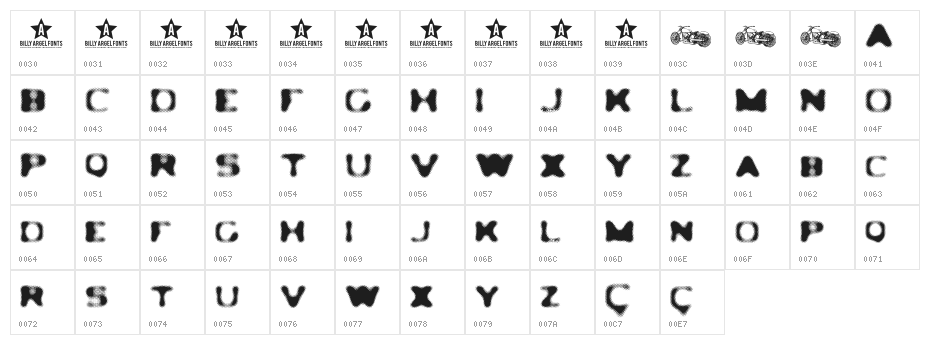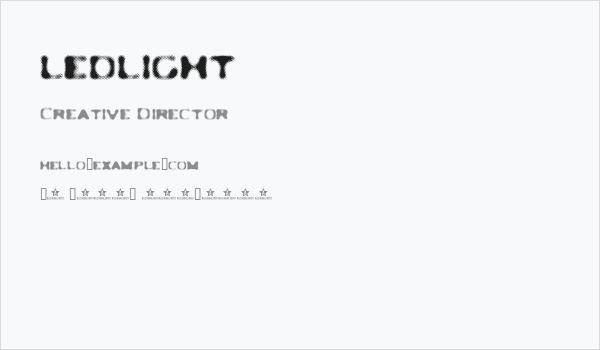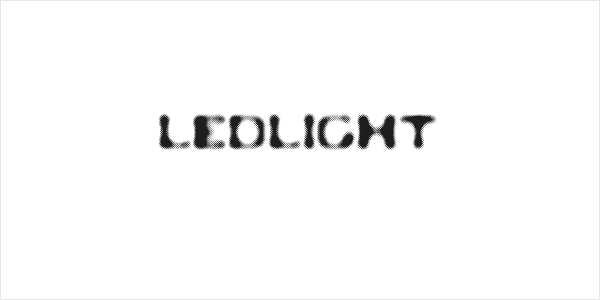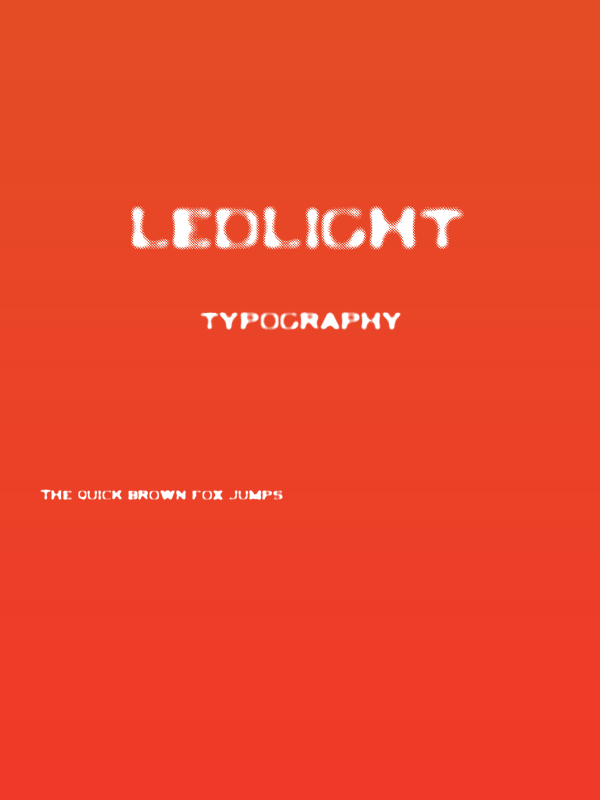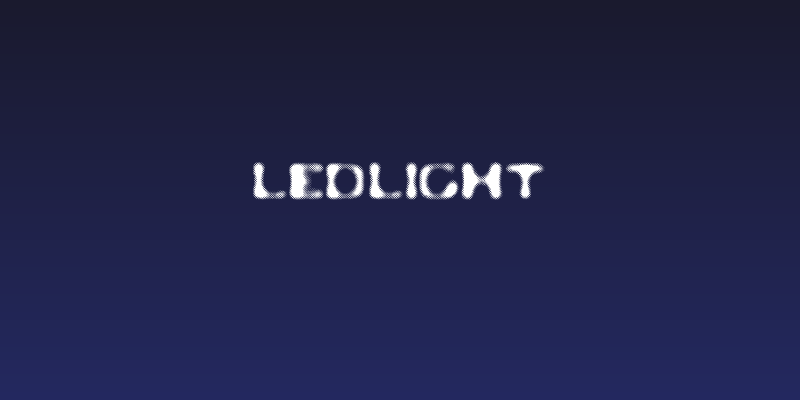
LEDLIGHT Font
This font features a bold and dynamic design with a distinct halftone pattern that gives it a textured, almost digital appearance. The uppercase letters are crafted with a unique blend of solid and dotted elements, creating a striking visual effect. The characters are wide and have a strong presence, making them ideal for attention-grabbing headlines or display purposes. The font's style is reminiscent of retro digital displays, yet it maintains a modern edge with its innovative use of patterns. The overall aesthetic is both playful and bold, suitable for creative projects that require a standout typeface.
| Proposed Projects | Ideal for posters, digital art, branding, and any project needing a bold, eye-catching typeface. |